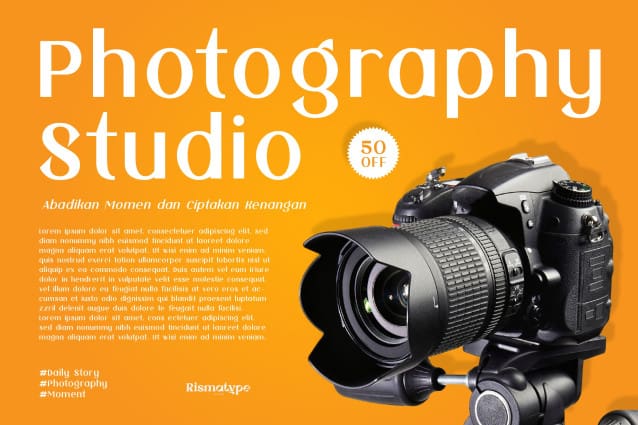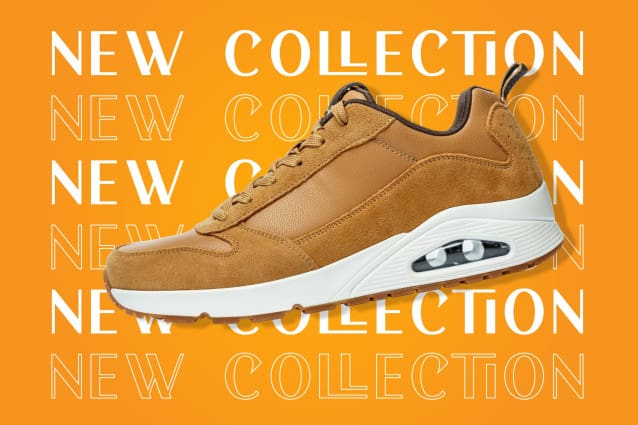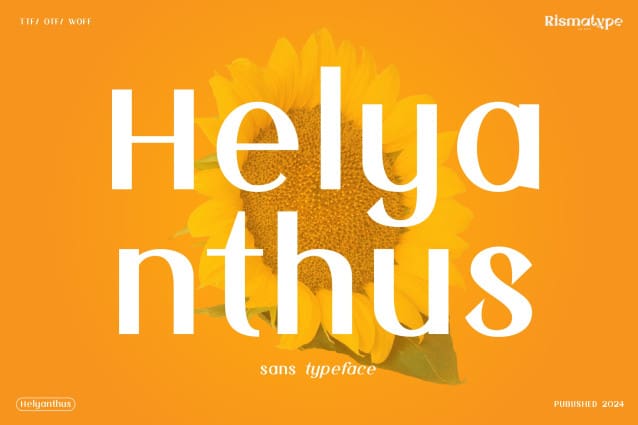
Helyanthus Font
Helyanthus Font is a serif display font crafted to convey timeless charm and elegance. Its refined curves and meticulous details make it the perfect choice for designs that seek both sophistication and impact, suitable for:
Branding & Logos: Create a memorable and refined impression. Editorial & Magazines: Enhance layouts with a polished, professional look. Invitations & Cards: Add a graceful touch to special occasions.
Make your designs bloom with every stroke of Helyanthus.
Let Helyanthus Font bring a blend of elegance and modern charm to your creations!